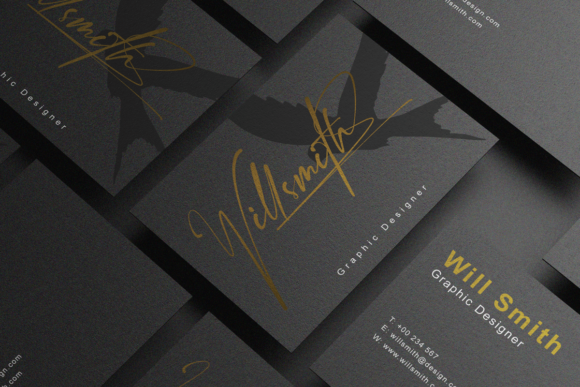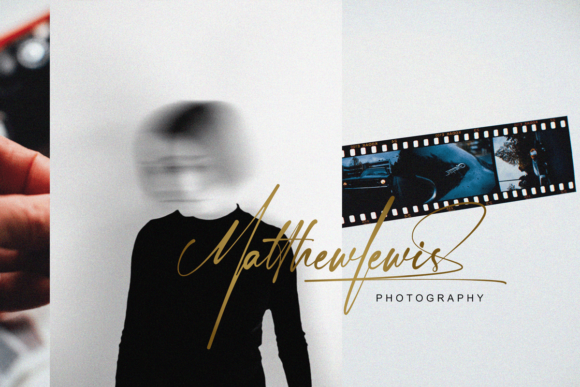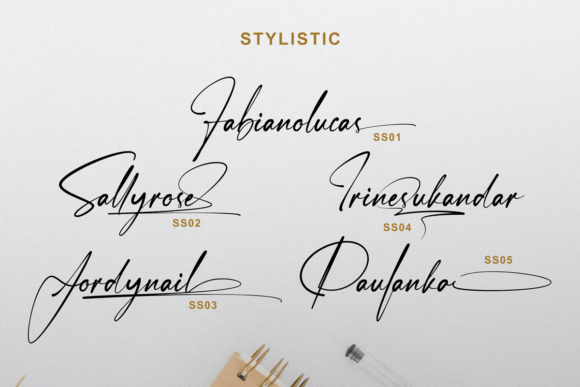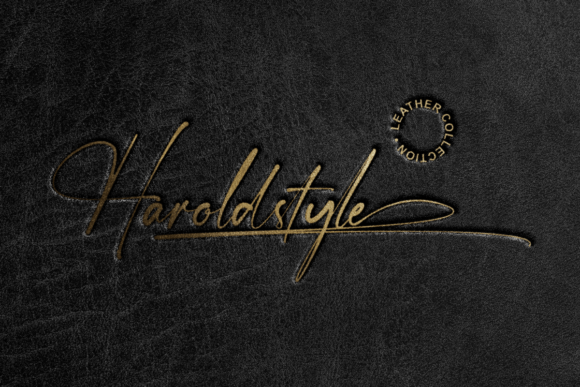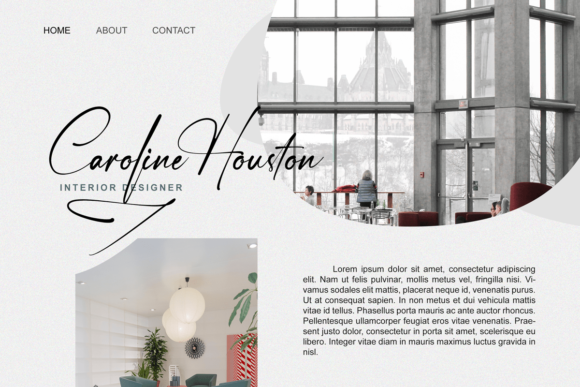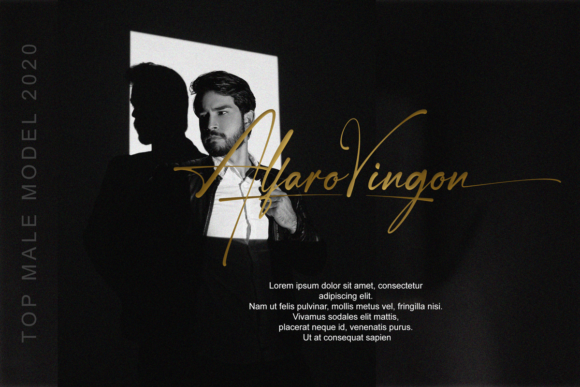
Introduction to Janelotus Font
Janelotus is a luxurious handwritten font.
Not too thin and not too thick, balanced and varied, this font was designed to enhance the beauty of your projects This font is PUA encoded which means you can access all of the glyphs and swashes with ease.